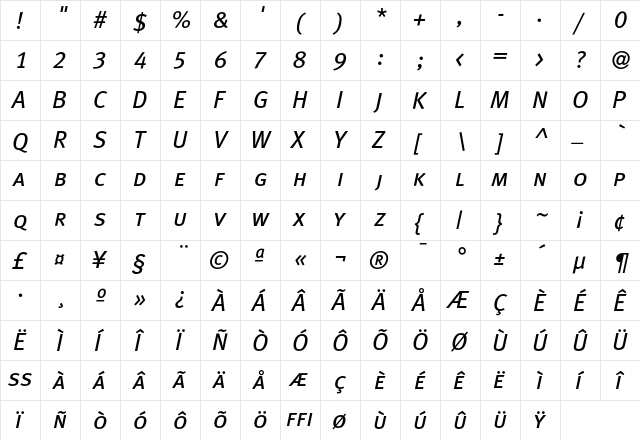
MetaPlusBook CapsItalic
Design Context for MetaPlusBook Typeface
MetaPlusBook offers clean, dependable letterforms without strong stylistic allegiance, making it a practical choice for designers who need flexibility. The slanted form adds forward momentum and visual energy.
Pro Tip: Use MetaPlusBook for emphasis, pull quotes, and subheadings where its slanted energy can add rhythm to the layout.